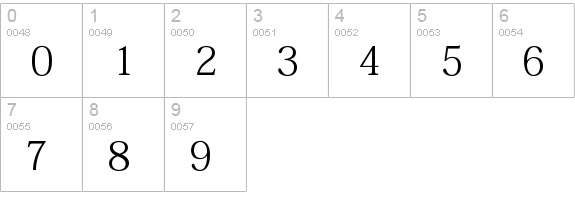
Adobe Kaiti Std R is an elegant and sophisticated font that exudes a sense of traditional Chinese calligraphy. With its graceful strokes and flowing curves, this font brings a touch of artistic flair to any design project. Whether you are creating invitations, posters, or branding materials, Adobe Kaiti Std R adds a unique touch of elegance. The best part is that Adobe Kaiti Std R is available for free download at FontsMarket.com. This means that you can easily access this beautiful font and use it in your designs without any cost. Whether you are a professional designer or a hobbyist, Adobe Kaiti Std R offers a versatile and visually appealing option for your creative projects. Download it today and add a touch of sophistication to your designs.